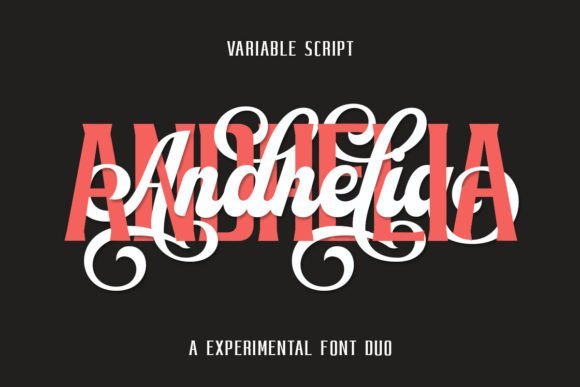
Introduction to Andhelia Font
Introducing Andhelia Script Duo – Font Family, a new curvy and balanced script typeface that is carefully crafted and full of character.
You can use it as a logo, badge, emblem, packaging, title, poster, t-shirt/apparel, greeting card, wedding invitation, etc The contours are made softer, more alternates added for Script Multilingual support added Flowing characters are ideal for creating attention-grabbing messages.